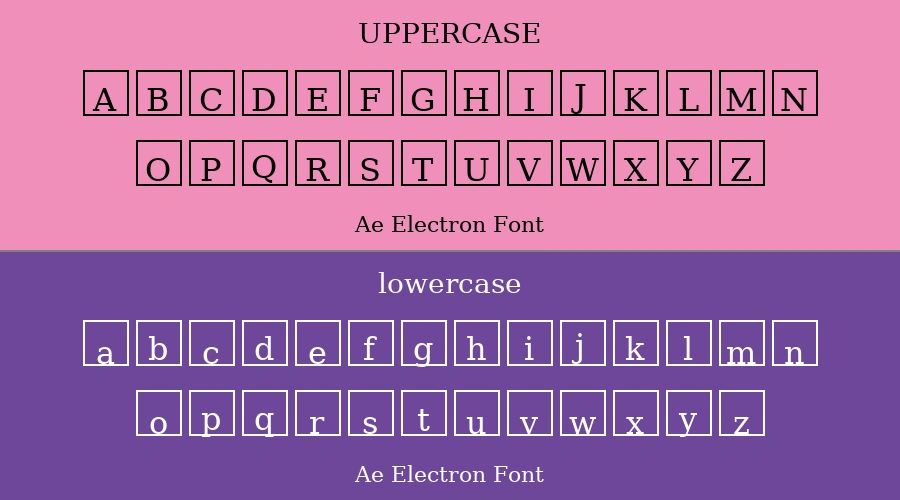
About Ae Electron Font
Ae Electron Font embodies typographic excellence through its masterful combination of clean lines and technical excellence. Created for ceremonial invitations, this typeface delivers exceptional versatility and aesthetic excellence across all applications. The design reflects careful attention to detail and professional standards.
Advanced capabilities include distinctive decorative alternates and versatile initial forms, giving designers creative control. When used in campaign headers, Ae Electron Font exhibits remarkable detail retention. The harmonious balance between descender depth and institutional trust sets this typeface apart.